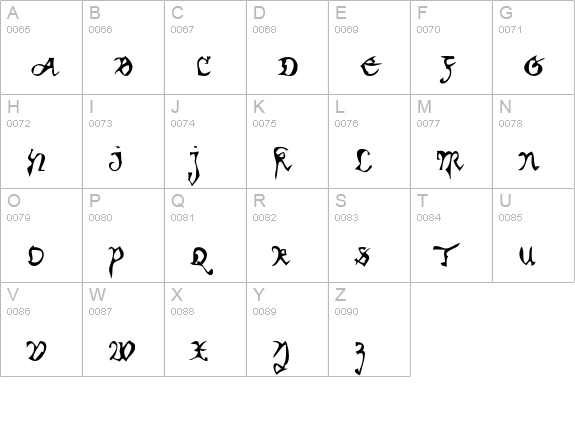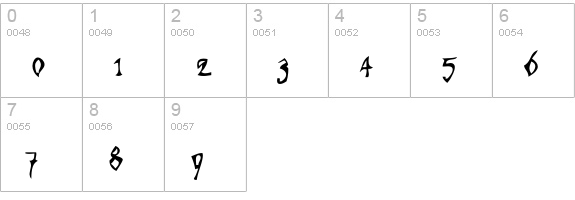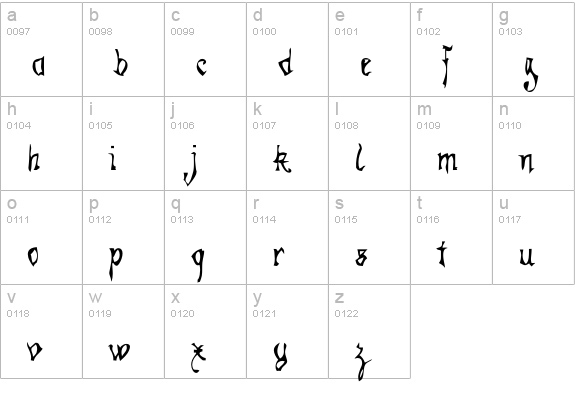
Kracklite Font Details
Introducing Kracklite font - a modern and stylish typeface that is perfect for adding a touch of sophistication to any design project. With its unique blend of sharp angles and elegant curves, Kracklite font exudes a sense of creativity and originality. This versatile font is ideal for a wide range of applications, from branding and logos to headlines and body text. Its clean lines and balanced proportions make it easy to read, while its distinct personality sets it apart from other fonts. Best of all, Kracklite font is completely free to download at FontsMarket.com. Whether you're a seasoned designer looking to add a fresh new font to your collection or a novice designer searching for the perfect typeface for your next project, Kracklite font is sure to impress. Download it today and elevate your designs to the next level!